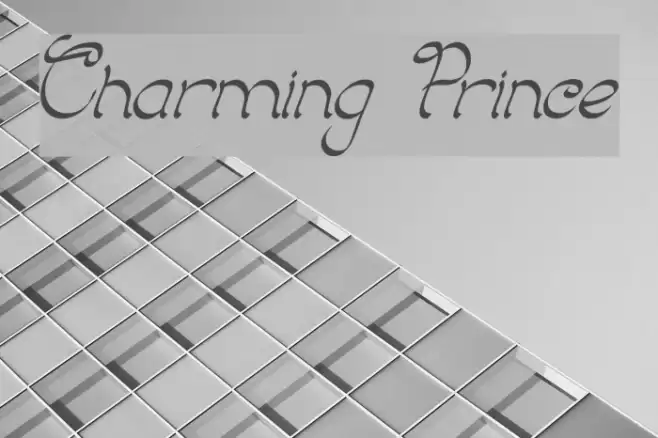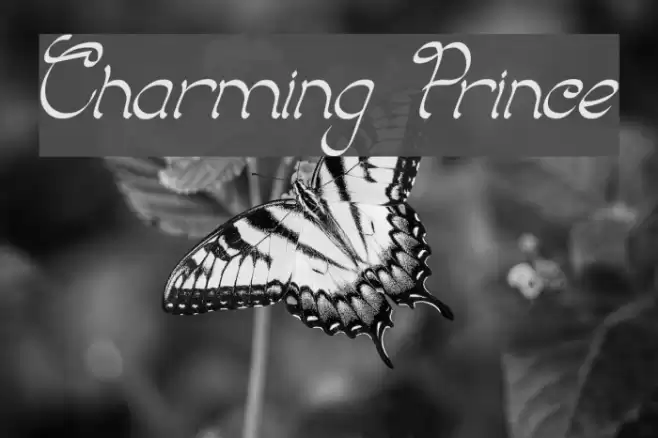
Charming Prince Font
Charming Prince Description
This elegant script font features a flowing, cursive style with intricate loops and swirls, giving it a sophisticated and romantic appearance. The characters are interconnected, creating a seamless and fluid look. The uppercase letters are particularly ornate, with elaborate flourishes that enhance their decorative appeal. The lowercase letters maintain a consistent style, complementing the uppercase with their graceful curves. The numerals and special characters are designed to match the overall aesthetic, ensuring a cohesive appearance across all text elements.
An elegant script font with flowing, interconnected characters and ornate flourishes from Uncategorized fonts.
- Proposed Projects: Ideal for wedding invitations, elegant branding, romantic greeting cards, and upscale packaging designs.
- Overall Style: Romantic, Elegant
- Use Case: Logos, Invitations, Decorative text